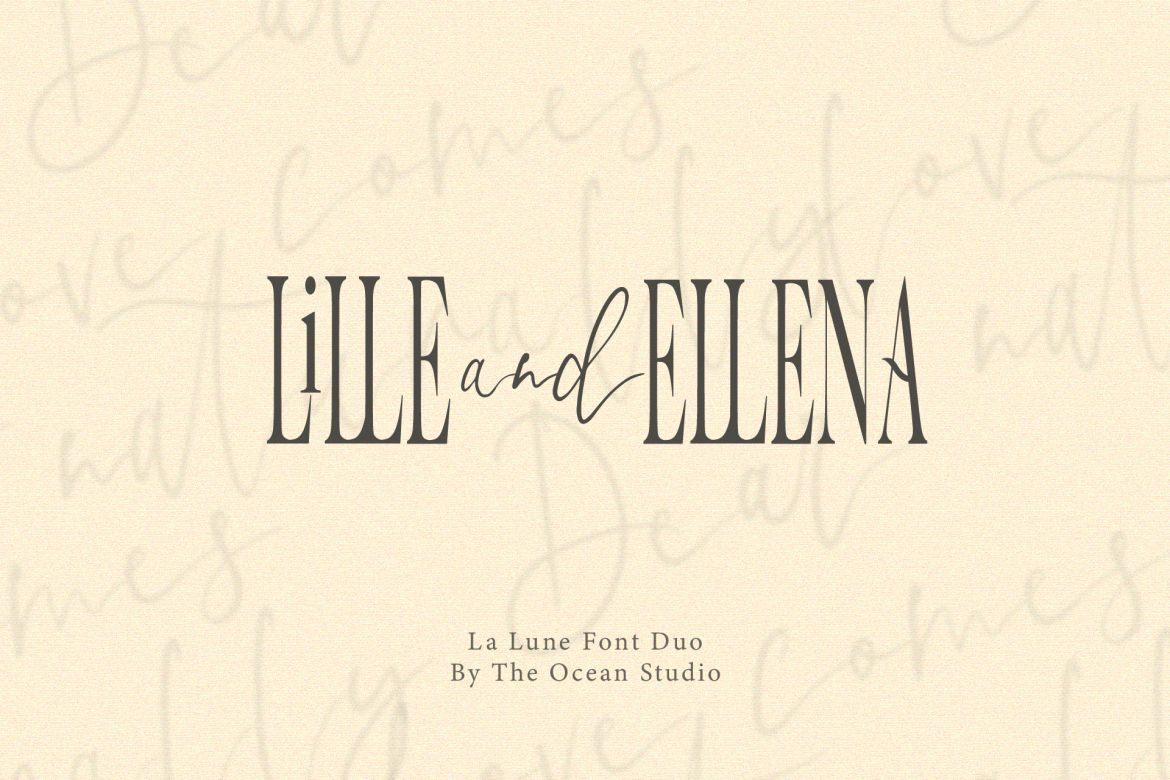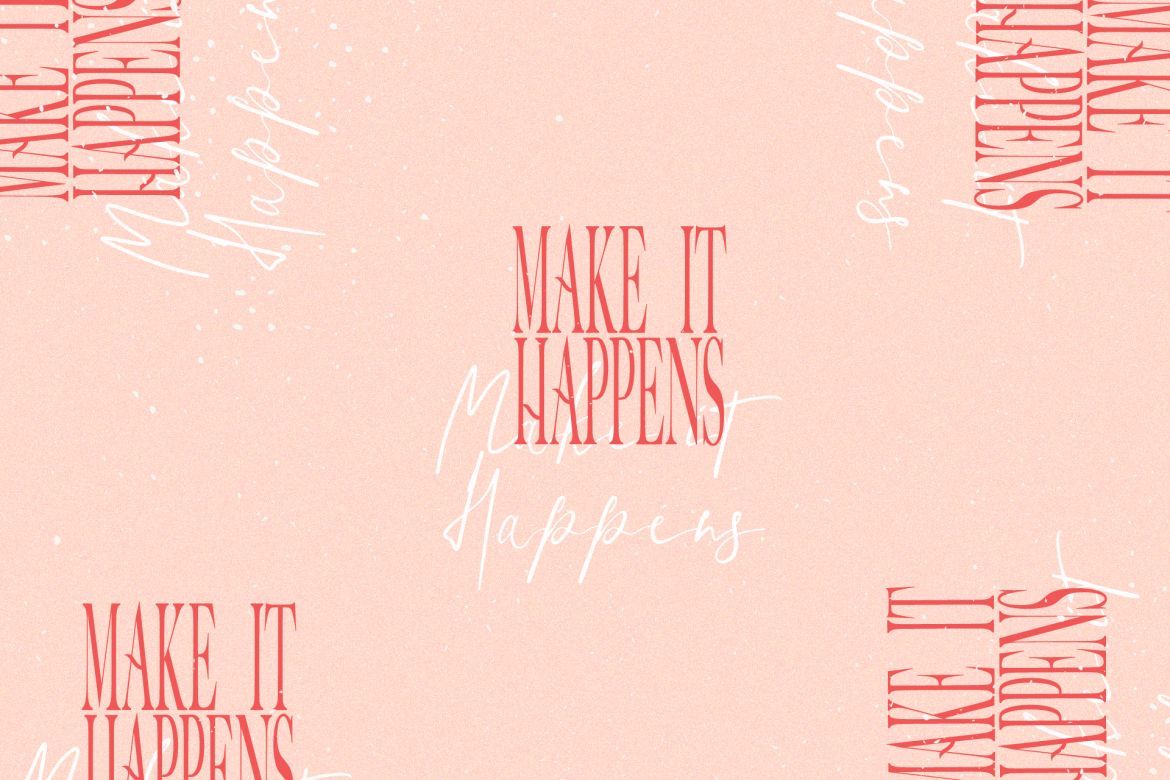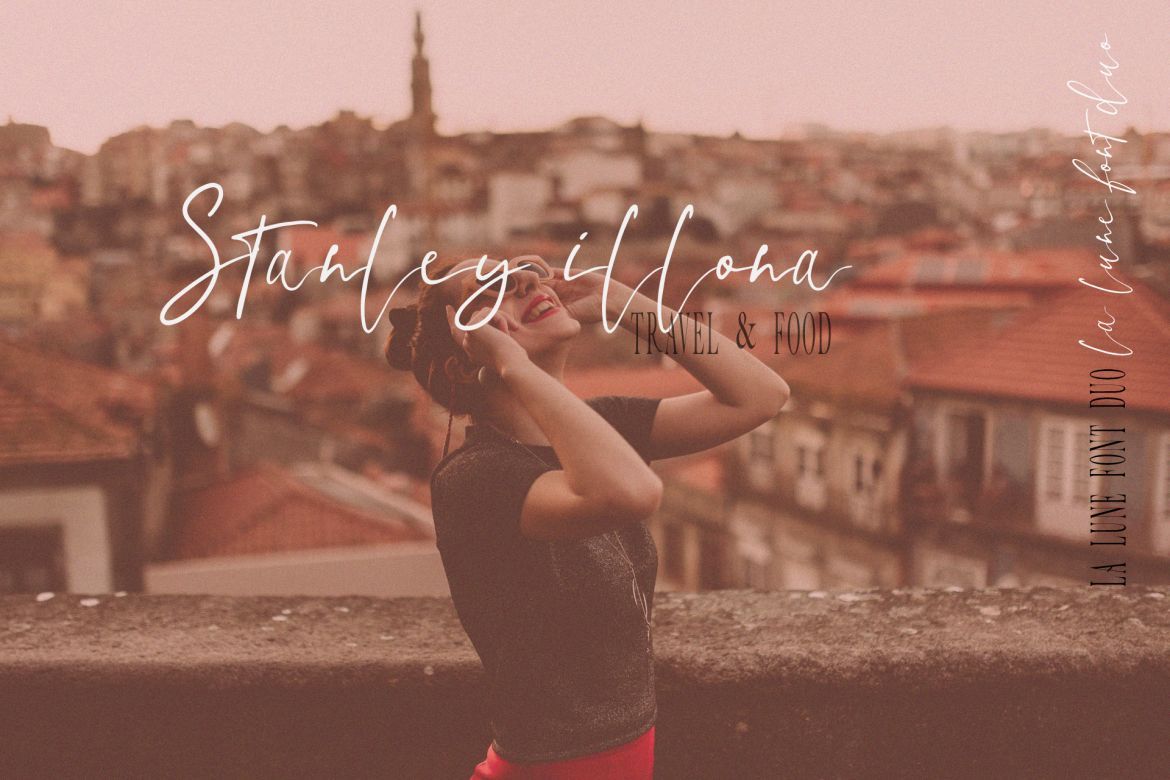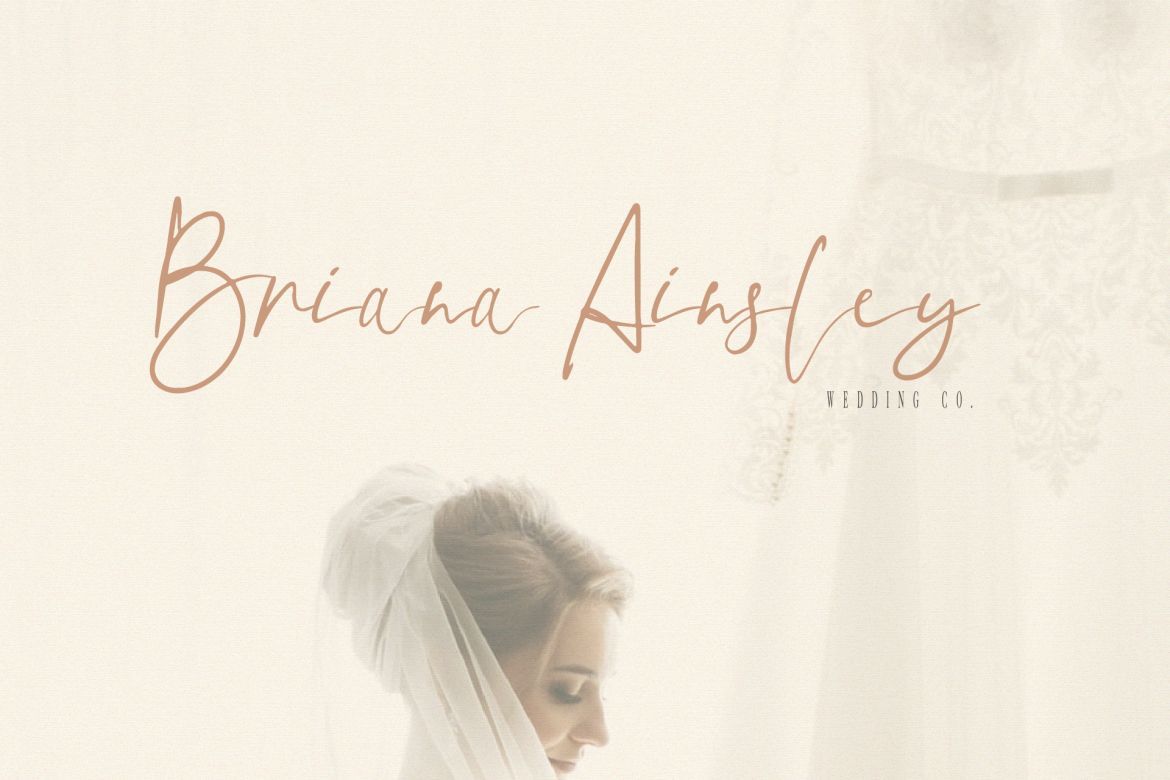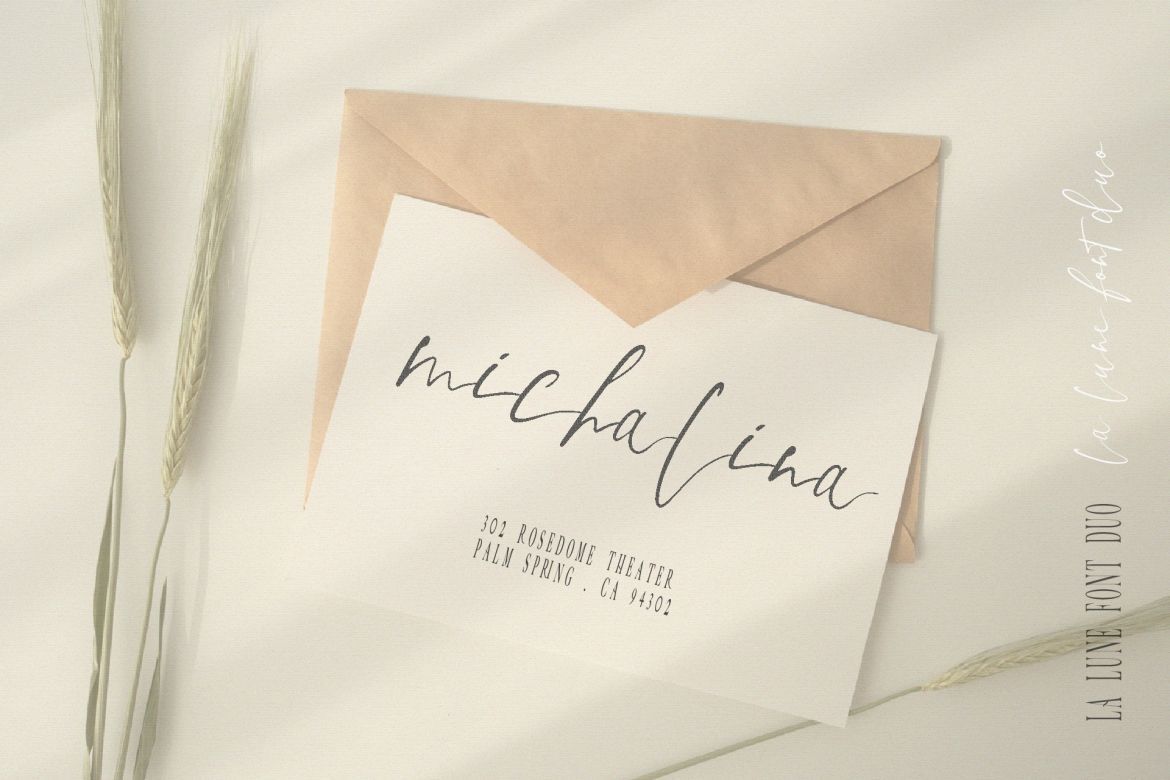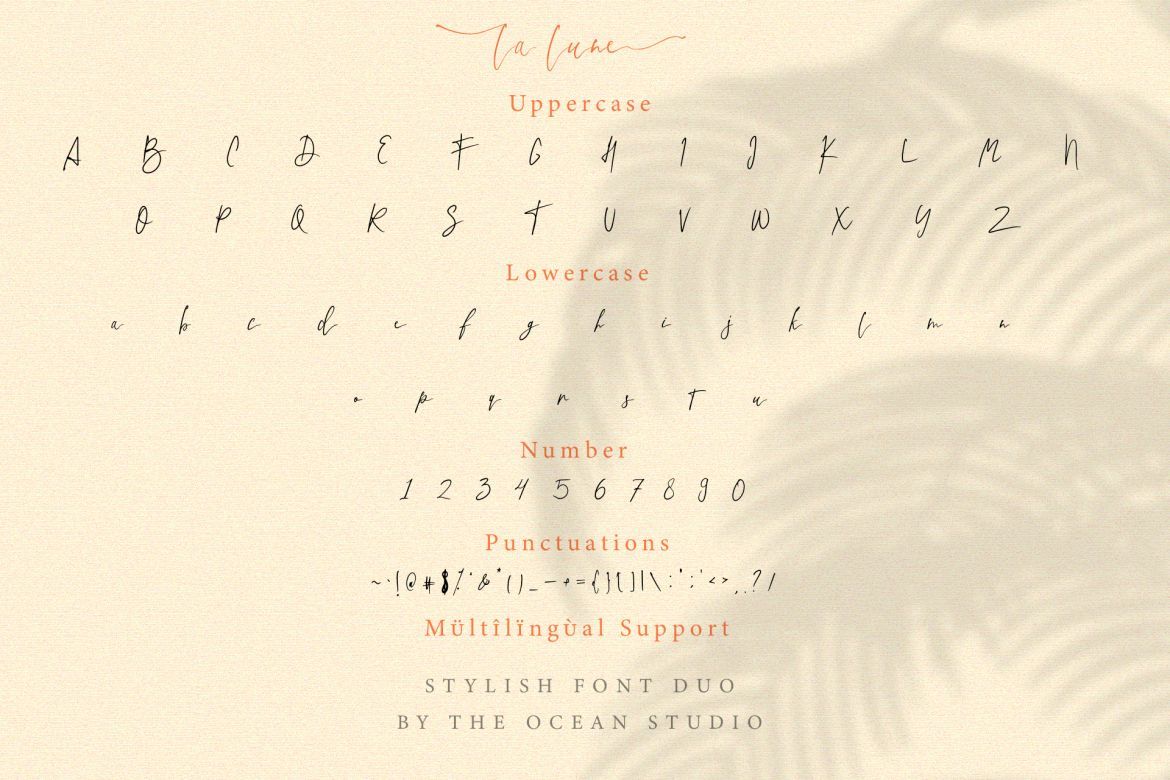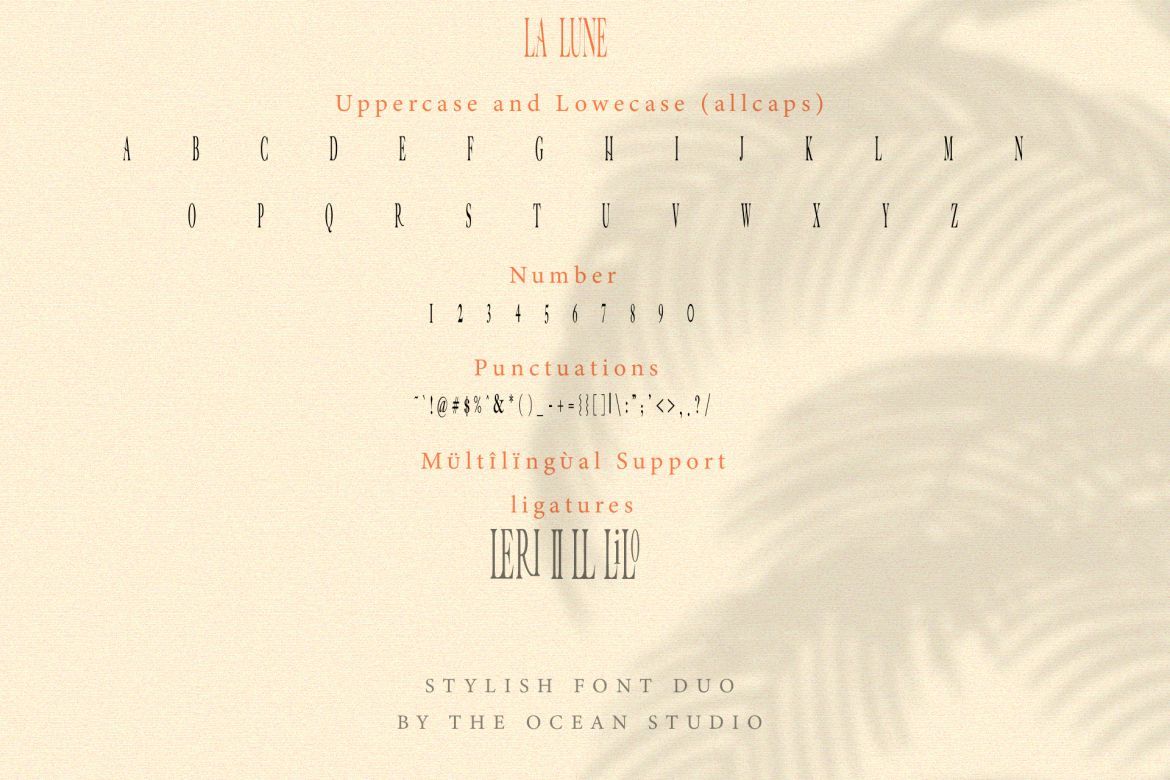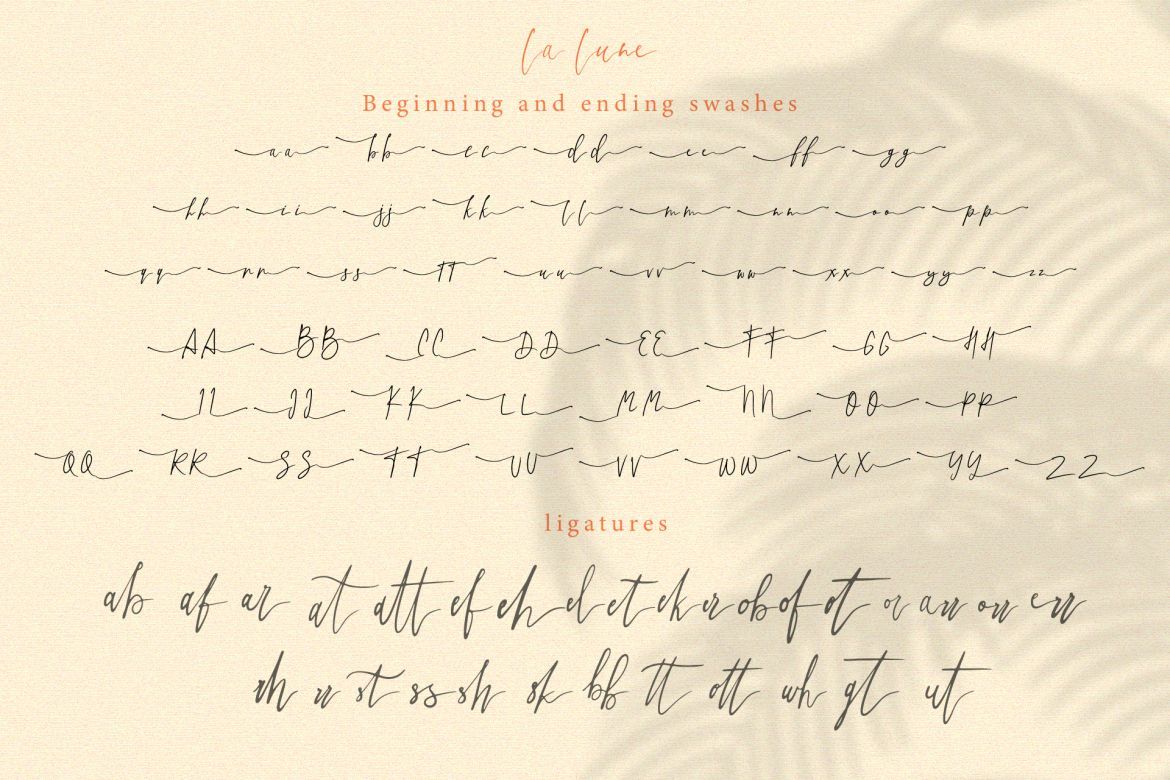
La Lune Font Duo
Introducing LA LUNE FONT DUO. LA LUNE FONT DUO is a beautiful Script combine with stylish serif. The combination of the font will make your design more beautiful and luxury. This font is suitable for any design like wedding, branding, quotes, and etc. every single letters have been carefully crafted to make your text looks beautiful
• features: " accents (multilingual characters) " pua encoded " numerals and punctuations (opentype standard)
• included: " la lune script font " beginning and ending swashes " la lune serif (all caps)